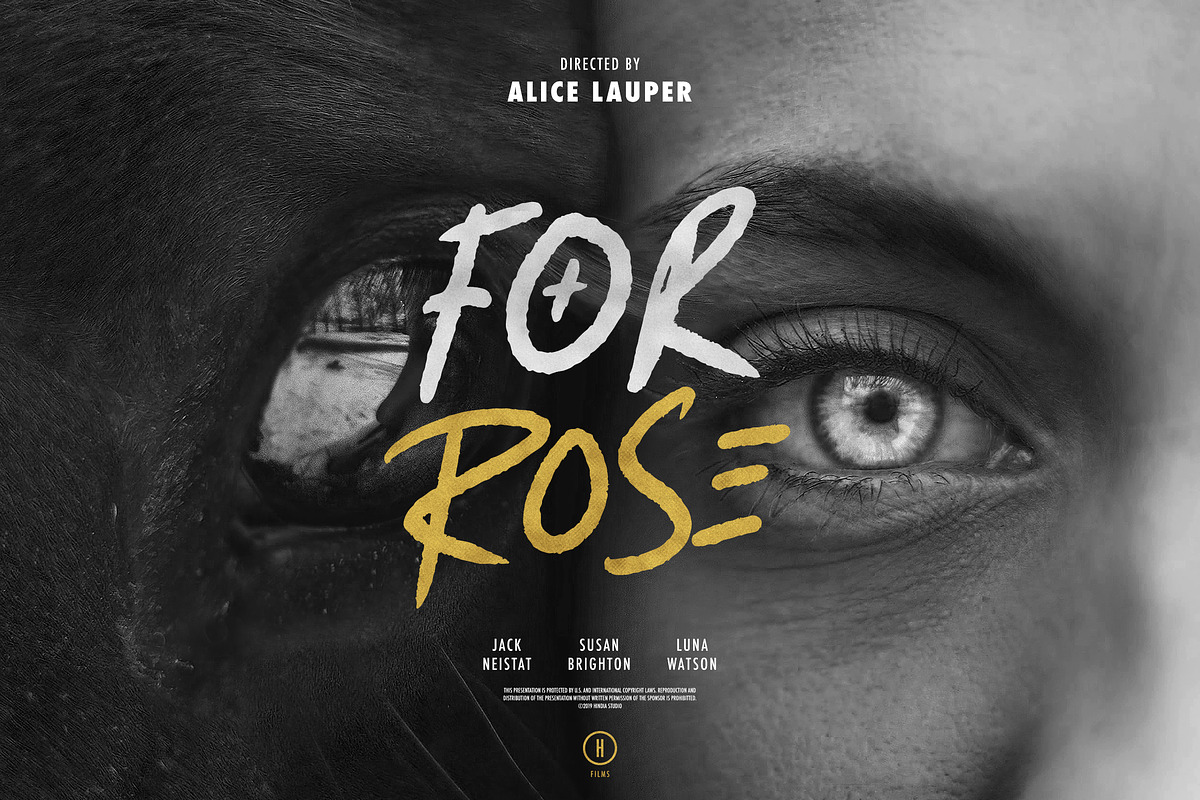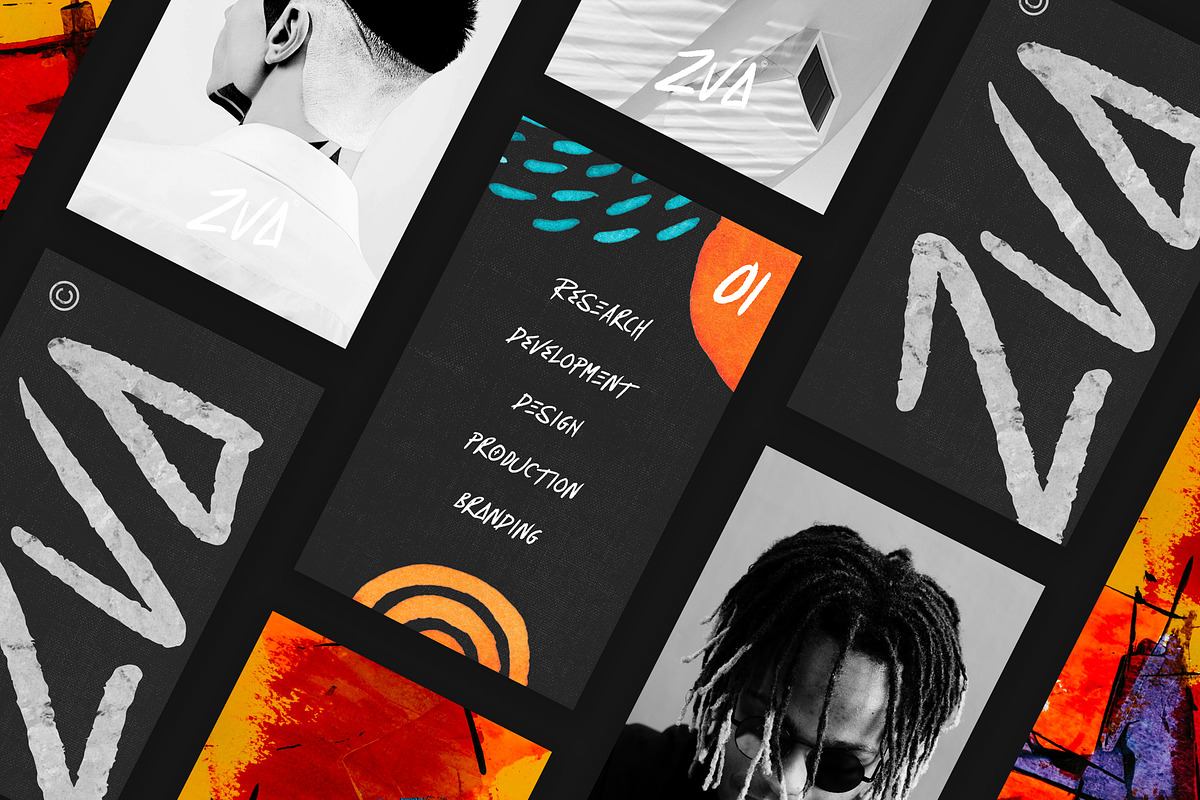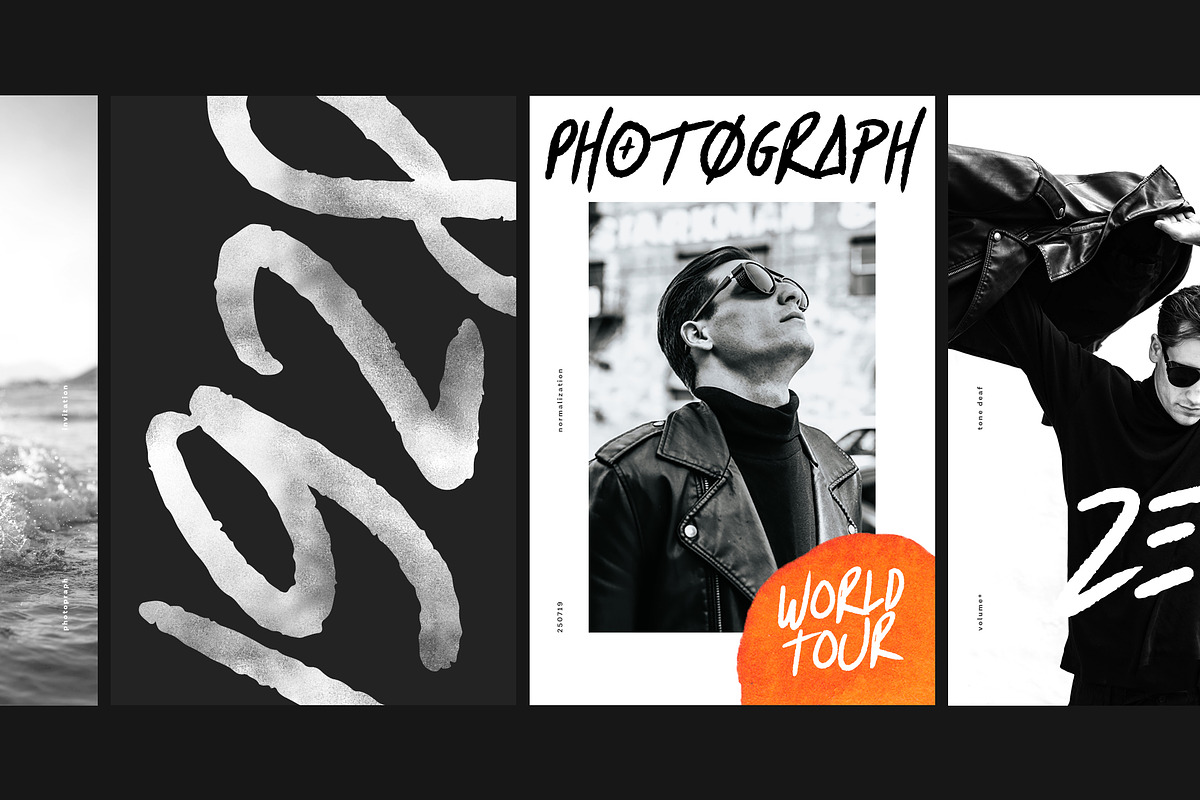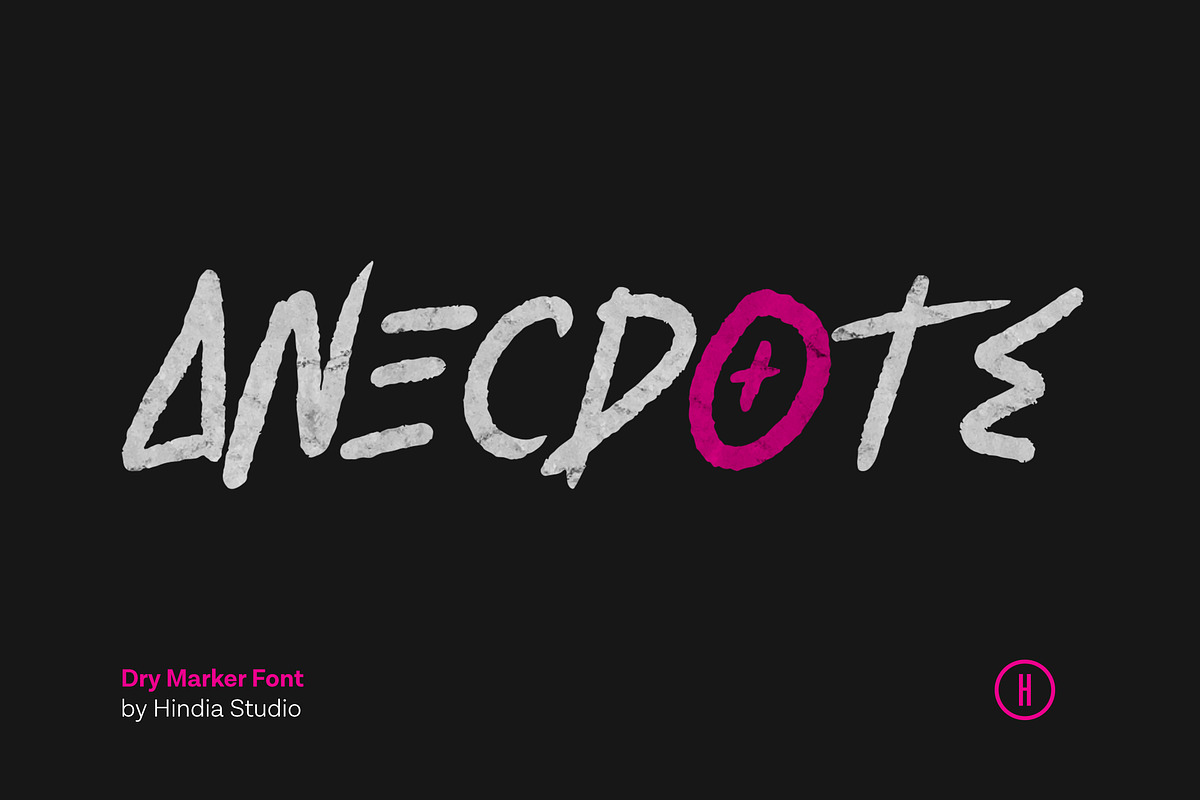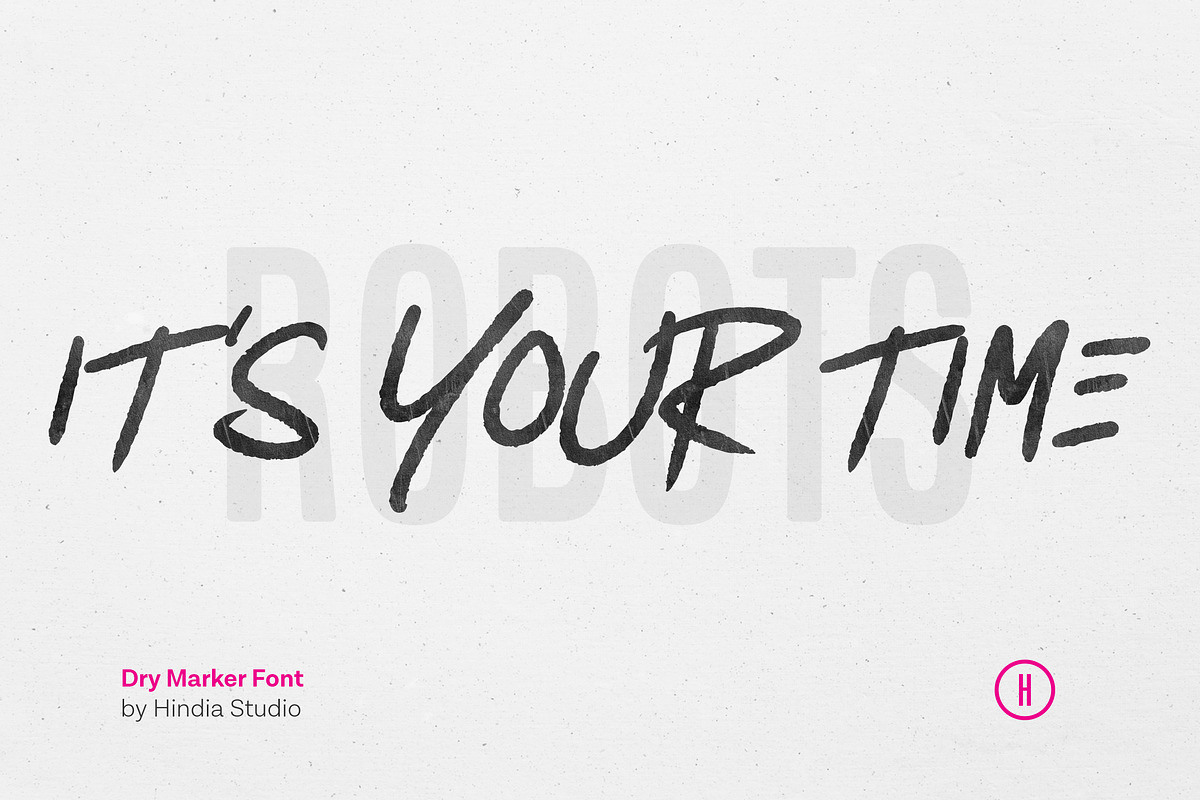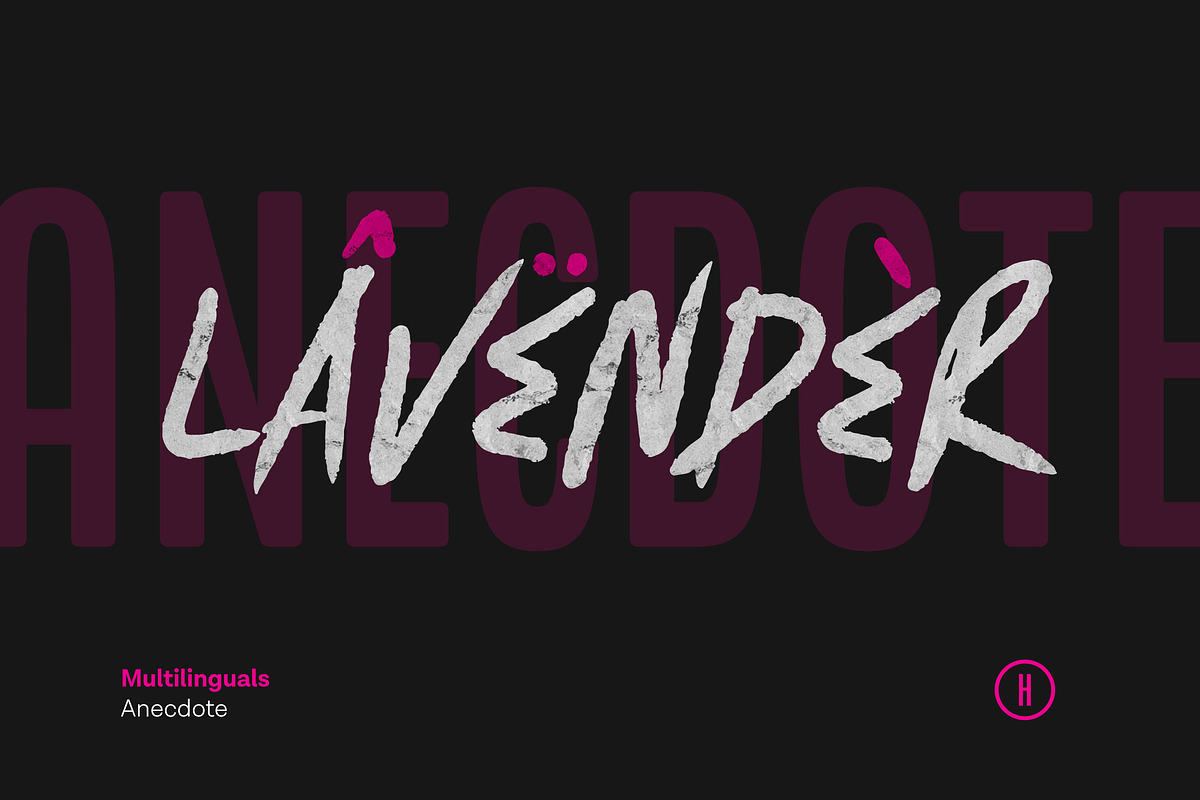
Anecdote
ANECDOTE | A Headliner
Anecdote! A casual, playful handwritten font with a witty charm. This carefree font is sure to grab attention and bring excitement. This handwritten script works best for fashion, mass products, apparel and magazines. It could also be used for film, television, marketing, advertising and websites.
- Titling/All Caps design